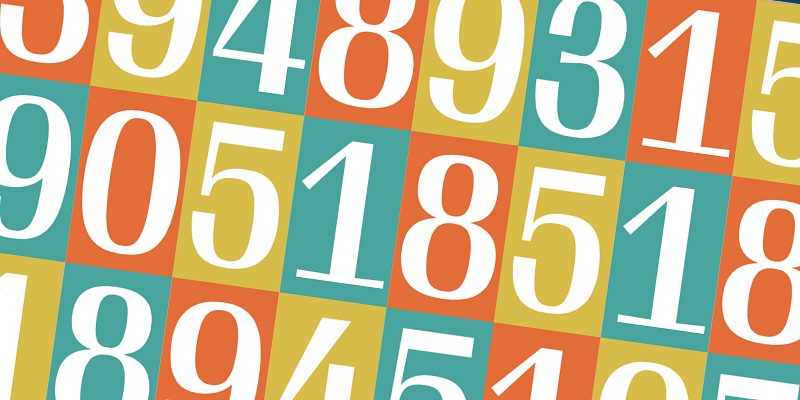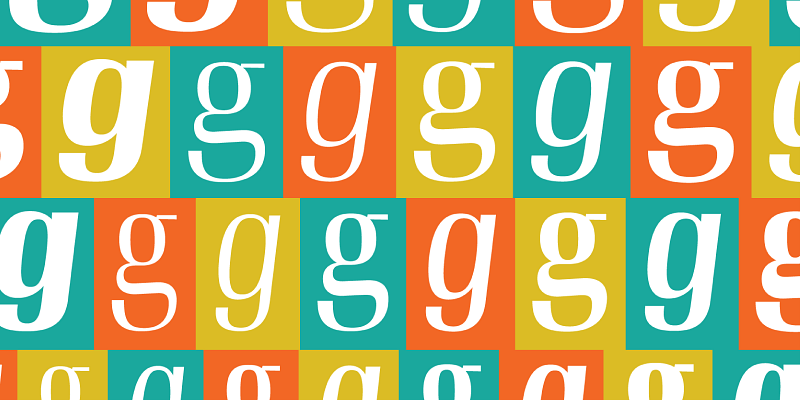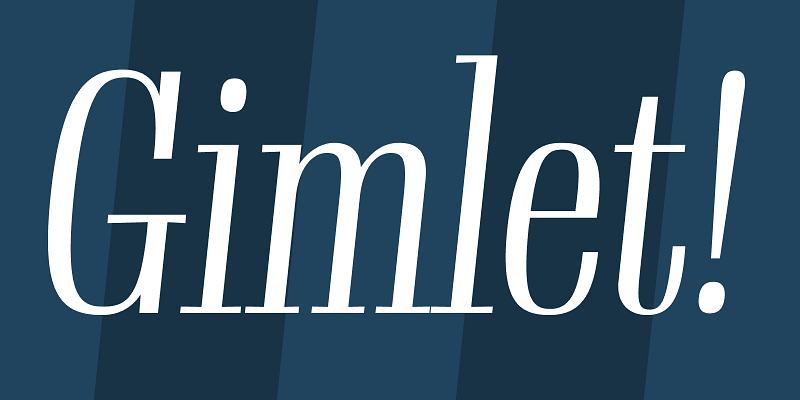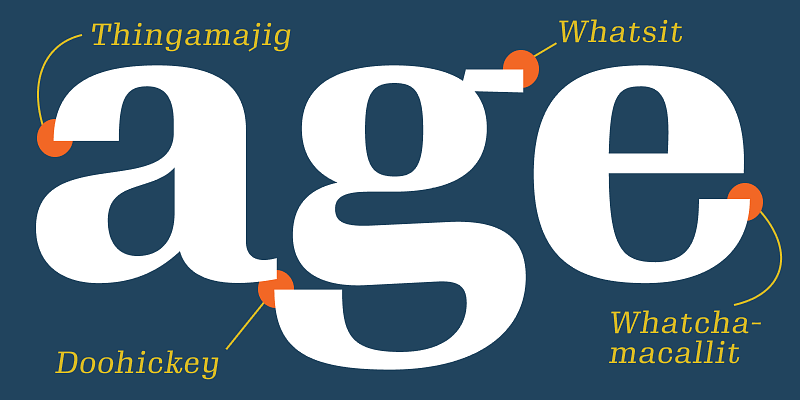
Gimlet draws its inspiration from Georg Trump’s 1938 typeface, Schadow. At the behest of Nick Sherman, David Jonathan Ross reimagined the oddball serif as an energetic contemporary workhorse, complete with three optical sizes and a flexible set of widths tailored for responsive layouts. A multifaceted series that speaks with a singular voice, Gimlet is a rare find: a typeface that is as funky as it is functional.
David Jonathan Ross draws letters of all shapes and sizes for custom and retail typeface designs from his studio in the woods of Western Massachusetts. A native of Los Angeles, He began drawing typefaces at Hampshire College and joined The Font Bureau in 2007 where he honed his bézier-wrangling skills. Now he publishes his typeface designs at his own foundry, DJR, as well as working on projects with Type Network and developing unusual display faces for his Font of the Month Club.